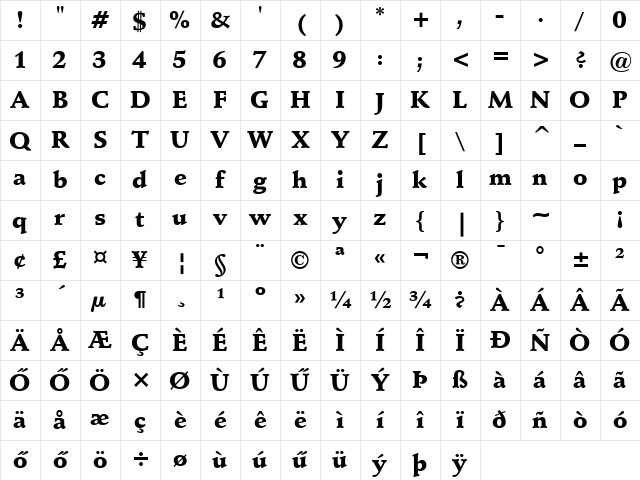
Schneidler-Black HU Normal Free Font
Schneidler-Black HU Normal
Design Context for Schneidler-Black HU
Schneidler-Black HU is a composed and adaptable typeface that performs quietly and consistently across a wide range of design contexts.